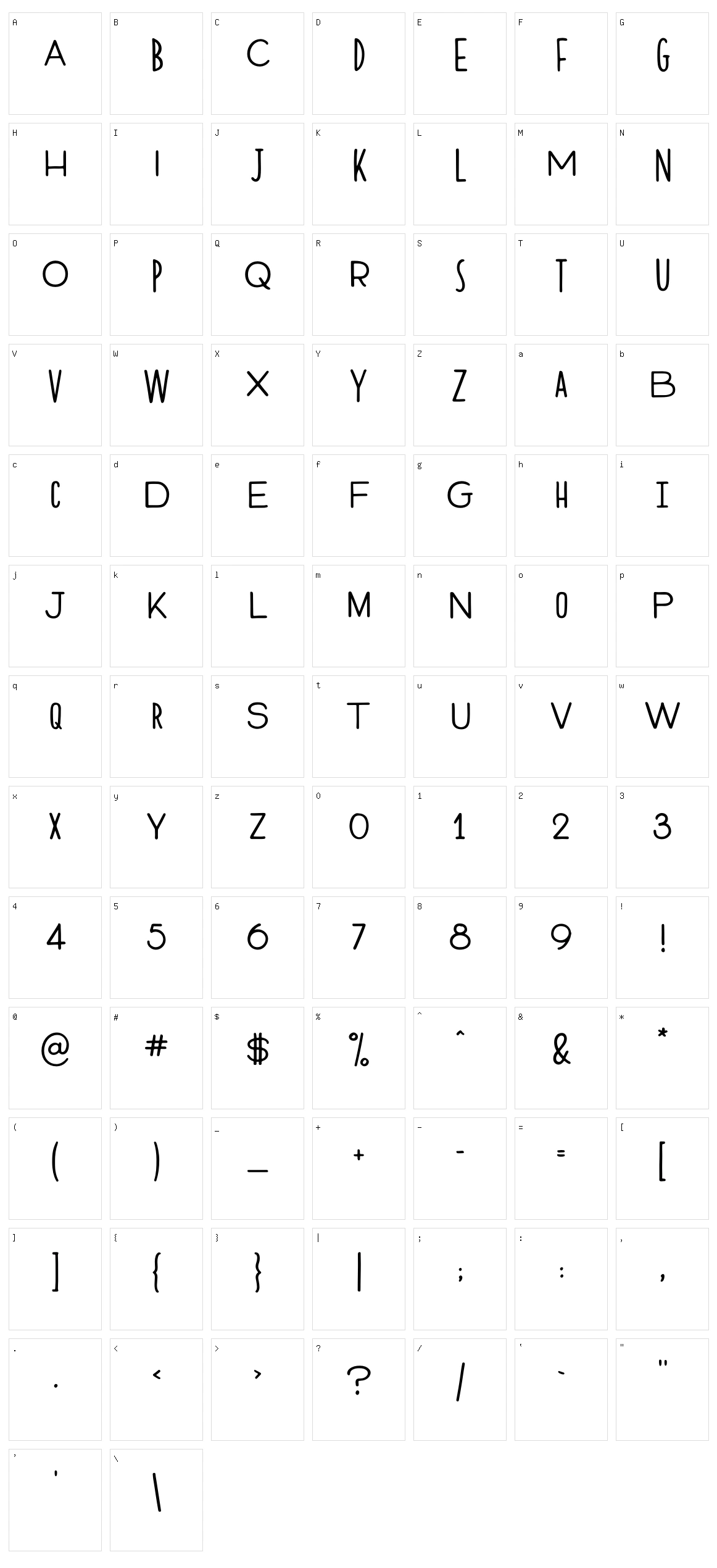
The free font Modern Society is carefully designed by Ayca Atalay, showcasing a thoughtful balance of creativity and usability and falls under the Distorted font style. When you download the ZIP file, it contains only 37.61 KB of font files, making it lightweight and quick to download. Please review the license details below to understand permitted usage and distribution rights. If license information is not available, we recommend using this font for personal projects only or contacting the author directly for commercial usage permissions.